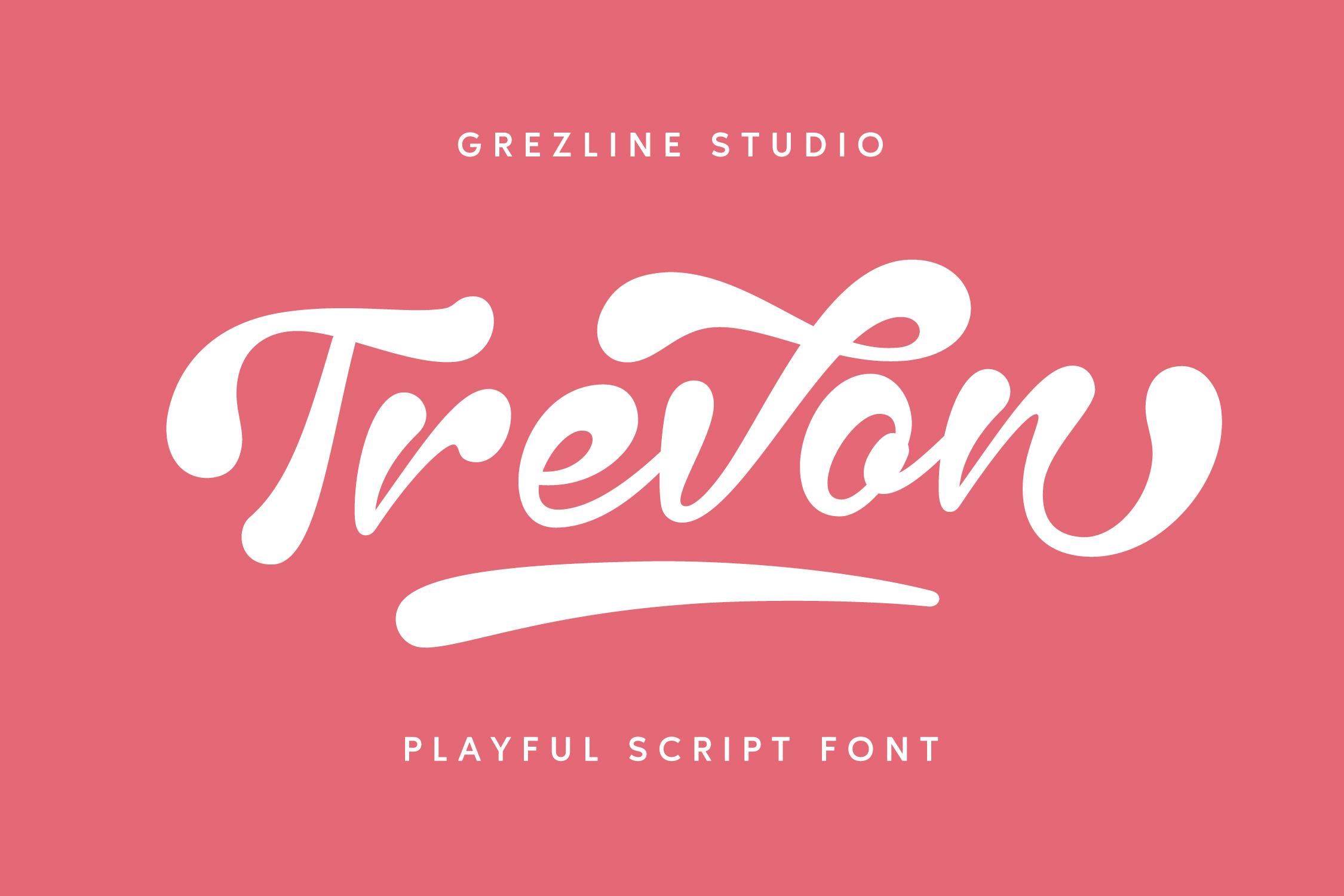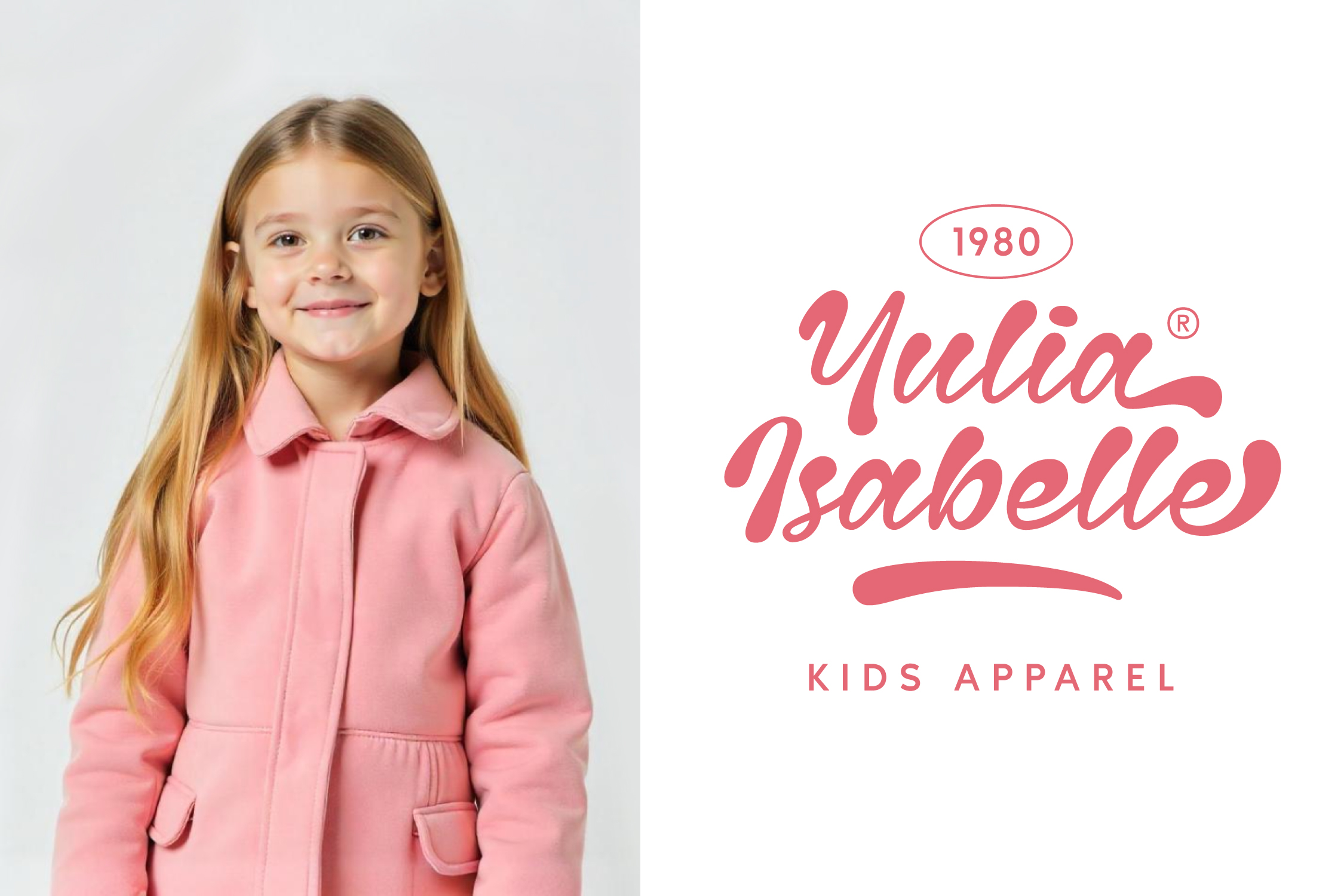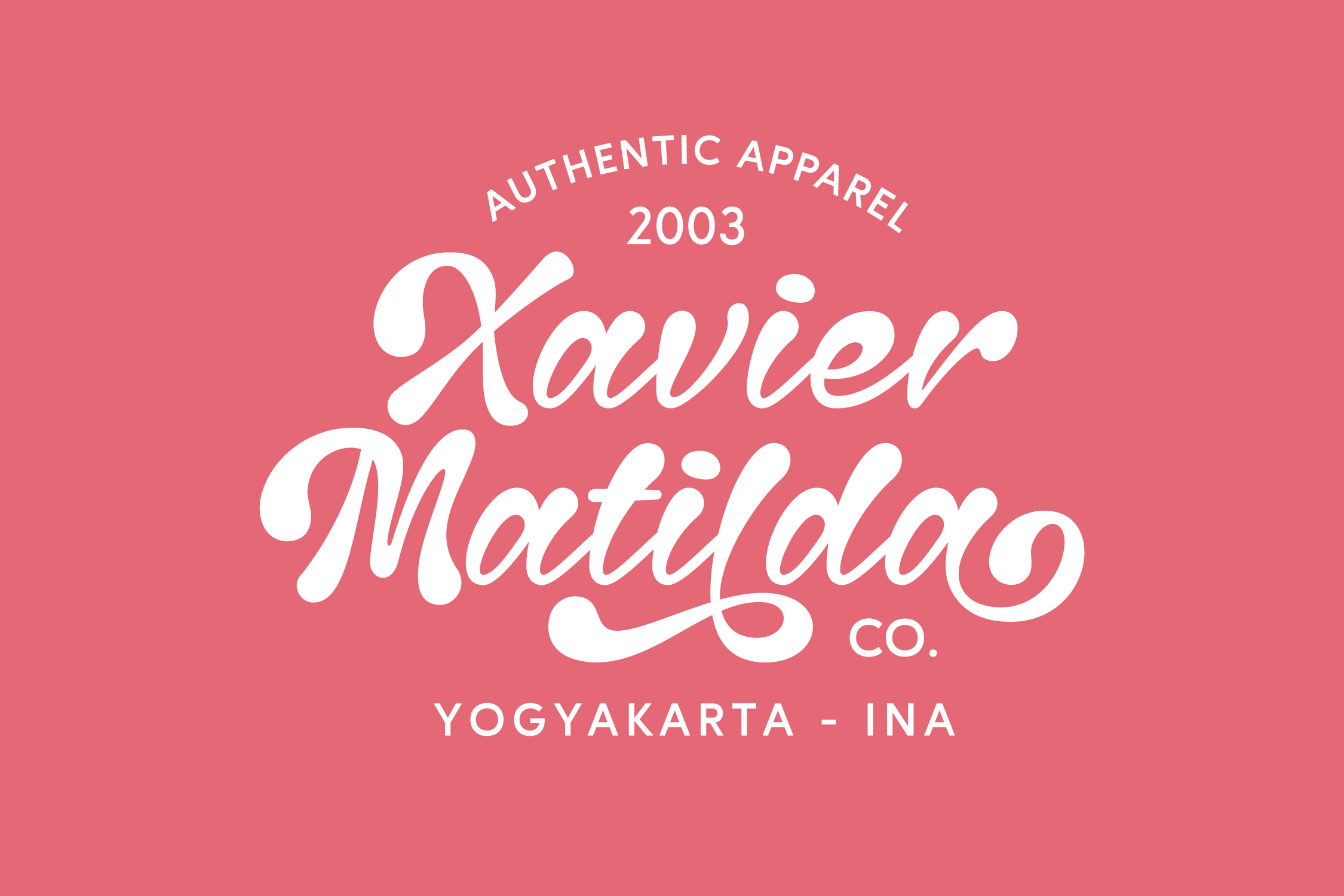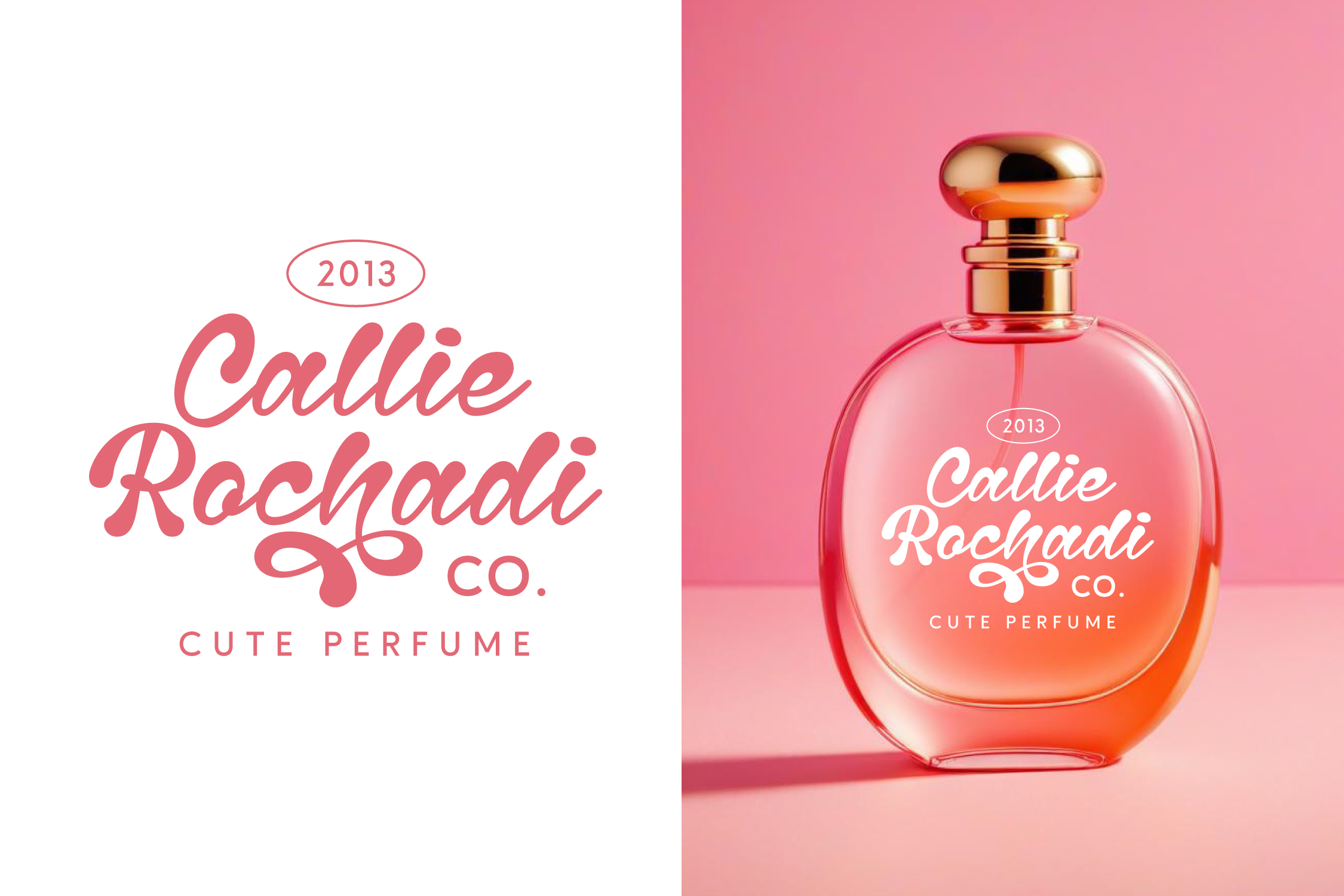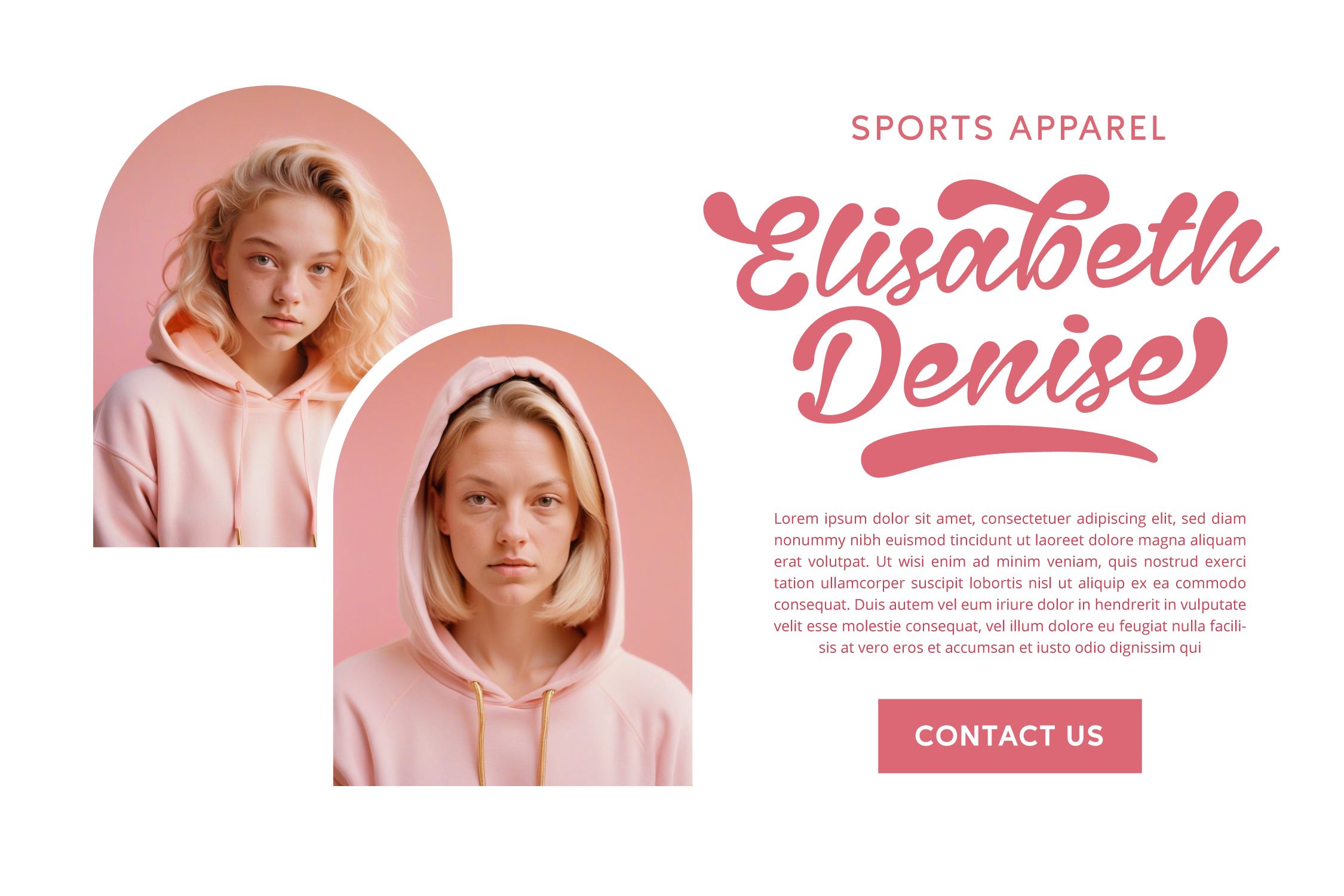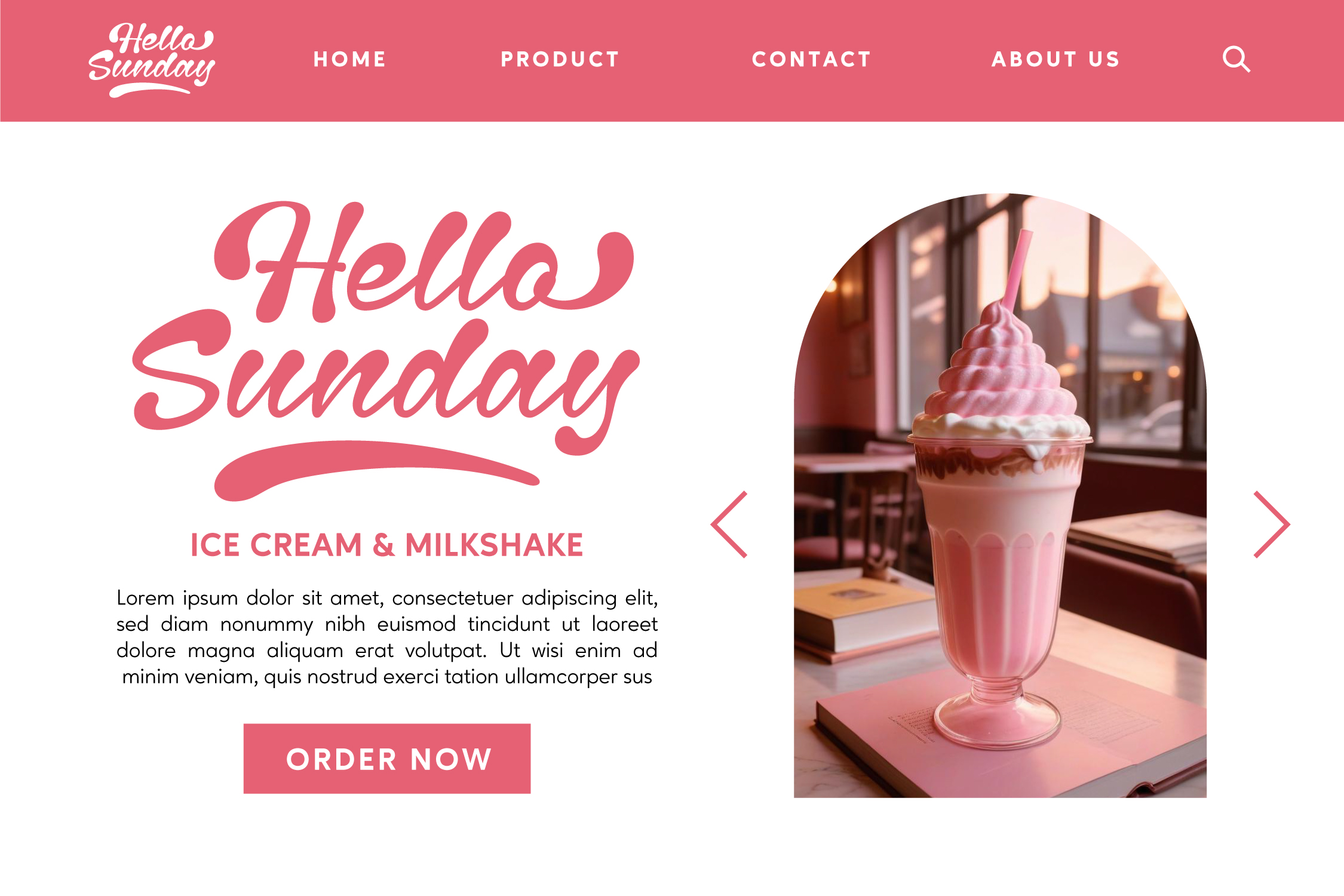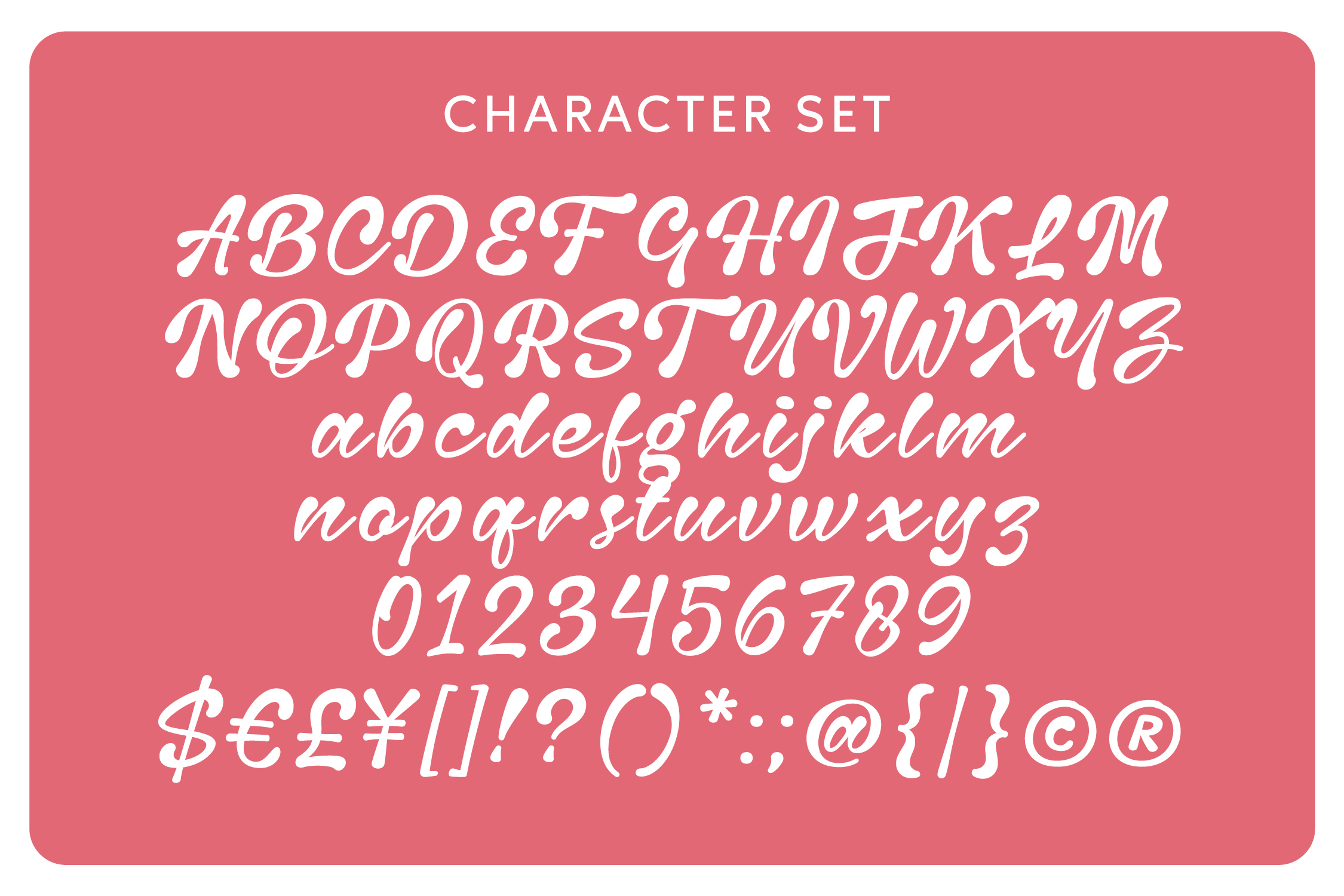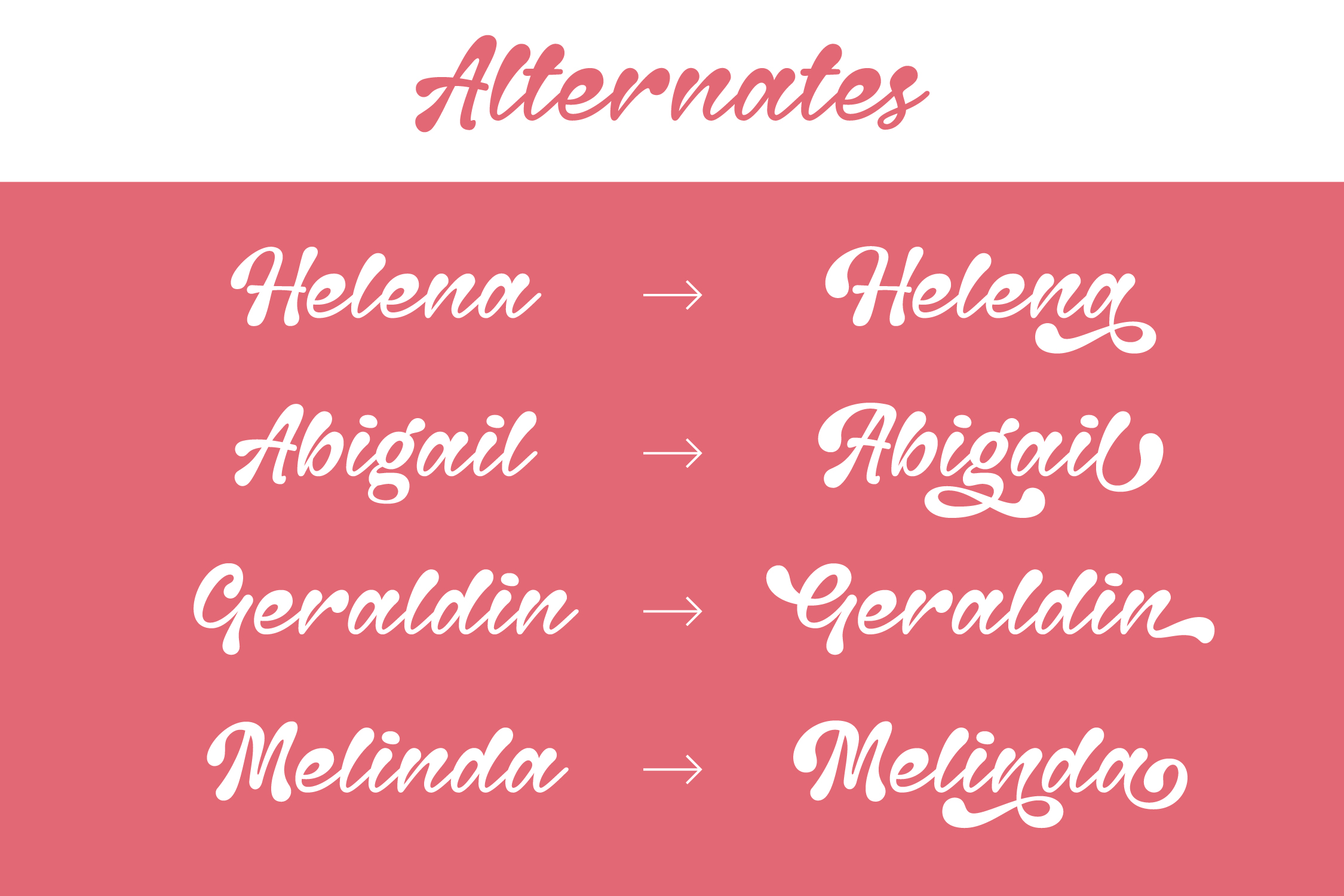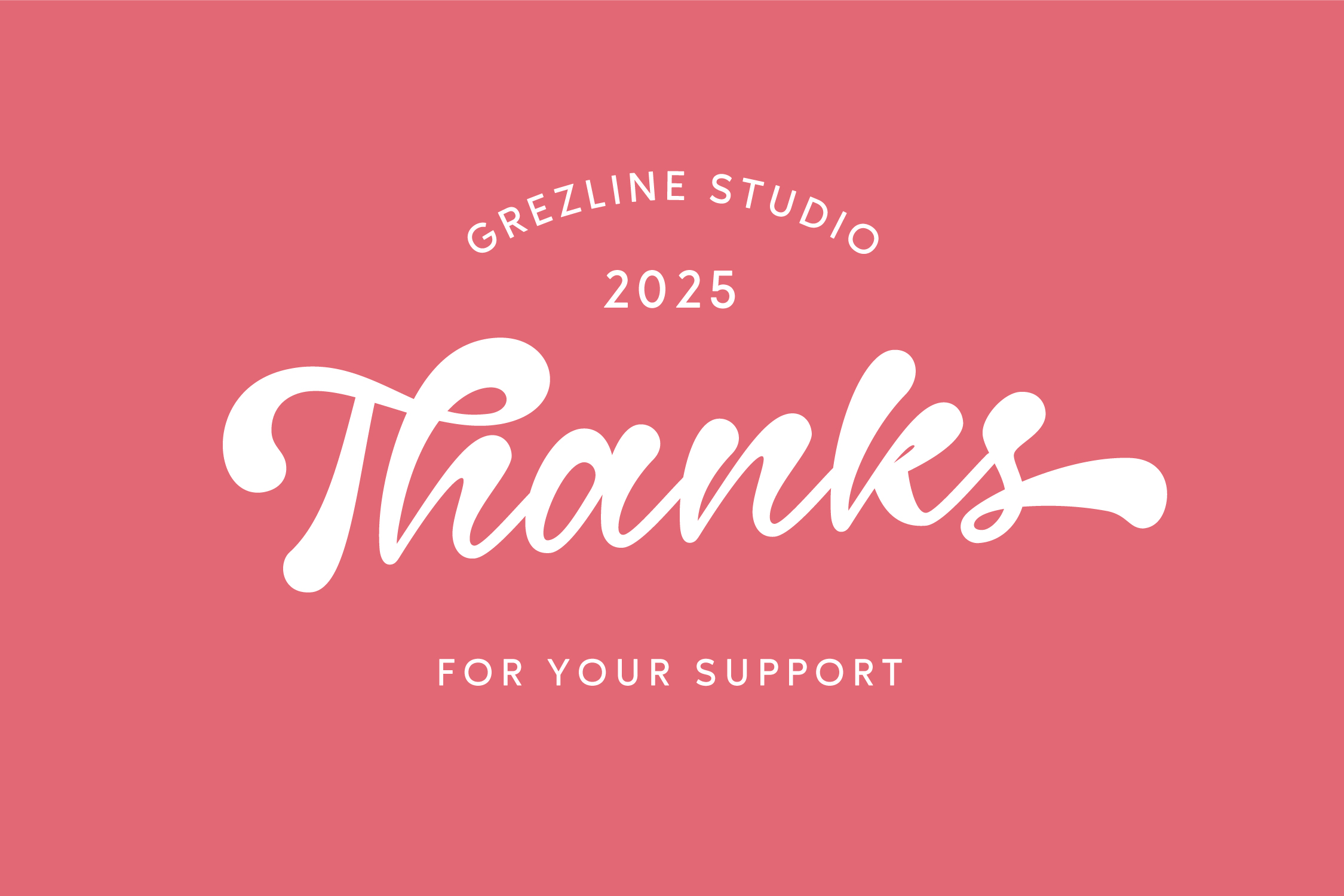
Trevon - Playful Script Font
Say hello to Trevon font—the happiest, cutest, most kid-friendly font ever created! Designed to turn every word into a smile, this font is perfect for logotype, apparel, invitation and other projects that need a splash of fun. Whether it’s a school poster, a lemonade stand sign, or a secret diary, Trevon font makes business feel like playtime!
Feature :
– Alternate and Ligature
– Multilingual Language